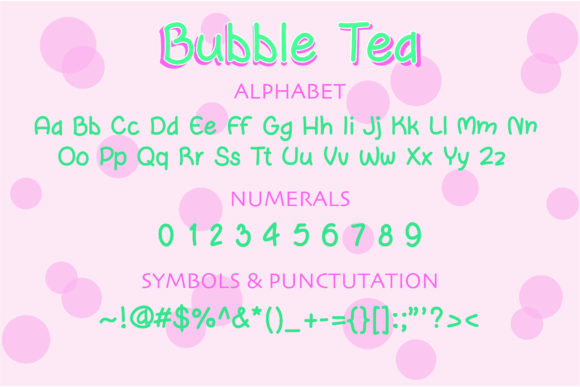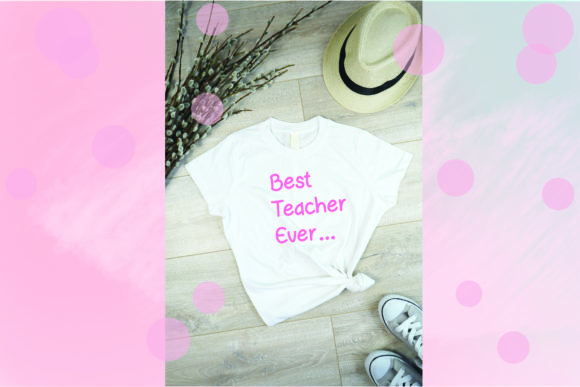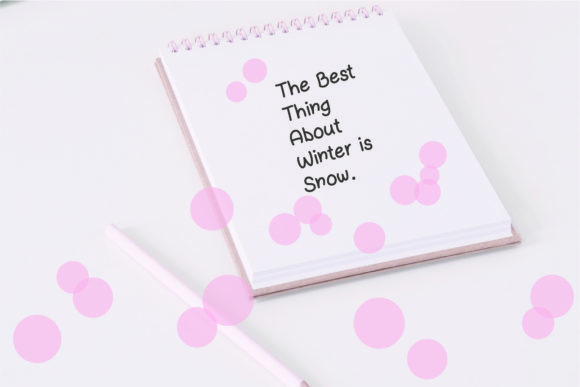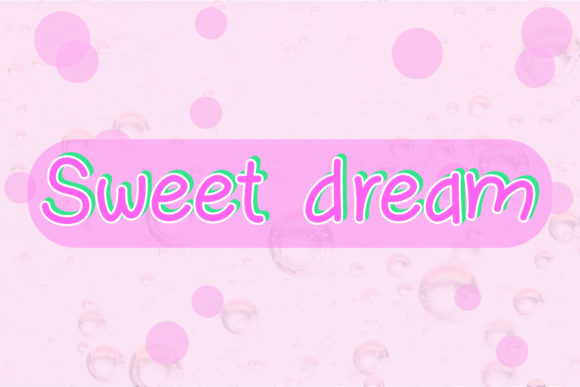
Bubble Tea Font: The Perfect Addition to Your Design Collection
Are you a designer or crafter looking for a unique and playful font to add to your collection? Look no further than the Bubble Tea Font! This adorable handwritten font is sure to bring a touch of whimsy and fun to any design project. In this article, we’ll dive into the features and benefits of the Bubble Tea Font, and explore how you can use it to take your designs to the next level.
What is Bubble Tea Font?
Bubble Tea Font is a cute and playful handwritten font that is perfect for a wide range of design projects. Its natural and unique style makes it fitting for everything from social media graphics to branding materials, and even craft projects like scrapbooking and card making. The font’s playful and carefree vibe is sure to capture the attention of your audience and add a touch of personality to your designs.
Features of Bubble Tea Font
So, what makes Bubble Tea Font so special? Here are just a few of its key features:
- Handwritten style: Bubble Tea Font has a natural, handwritten look that gives it a unique and personal feel.
- Playful and cute: This font is sure to bring a smile to your face! Its playful and cute style makes it perfect for designs that need a touch of whimsy.
- Versatile: Bubble Tea Font can be used for a wide range of design projects, from social media graphics to branding materials, and even craft projects.
- Easy to read: Despite its playful style, Bubble Tea Font is easy to read and understand, making it perfect for designs that need to communicate a message.
How to Use Bubble Tea Font
Now that we’ve covered the features of Bubble Tea Font, let’s talk about how you can use it in your designs. Here are a few ideas to get you started:
- Social media graphics: Add a touch of personality to your social media graphics with Bubble Tea Font. Use it to create eye-catching posts, stories, and ads that will capture the attention of your audience.
- Branding materials: Use Bubble Tea Font to create unique and memorable branding materials, such as logos, business cards, and letterheads.
- Craft projects: Bubble Tea Font is perfect for craft projects like scrapbooking, card making, and journaling. Add a personal touch to your crafts with this adorable font.
Tips for Getting the Most Out of Bubble Tea Font
Here are a few tips for getting the most out of Bubble Tea Font:
- Experiment with different colors: Bubble Tea Font looks great in a variety of colors, so don’t be afraid to experiment and find the perfect hue for your design.
- Mix and match with other fonts: Try pairing Bubble Tea Font with other fonts to create a unique and interesting look.
- Use it sparingly: While Bubble Tea Font is cute and playful, it can be overwhelming if used too much. Use it sparingly to add a touch of personality to your design.
In conclusion, Bubble Tea Font is a cute and playful handwritten font that is perfect for designers and crafters looking to add a touch of whimsy to their designs. Its natural and unique style makes it fitting for a wide range of design projects, from social media graphics to branding materials, and even craft projects. With its easy-to-read style and versatile features, Bubble Tea Font is sure to become a favorite in your design collection. So why wait? Download Bubble Tea Font today and start exploring its endless variations!